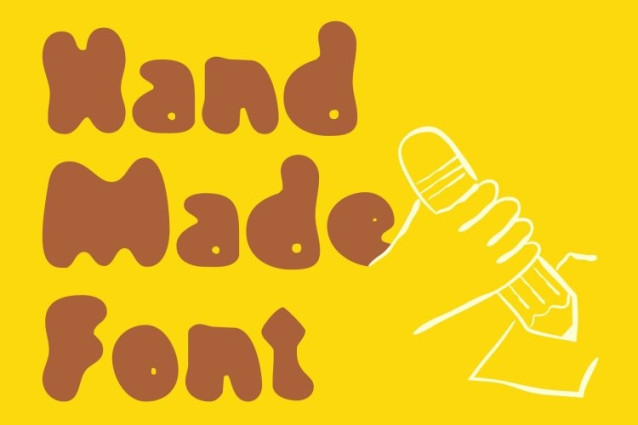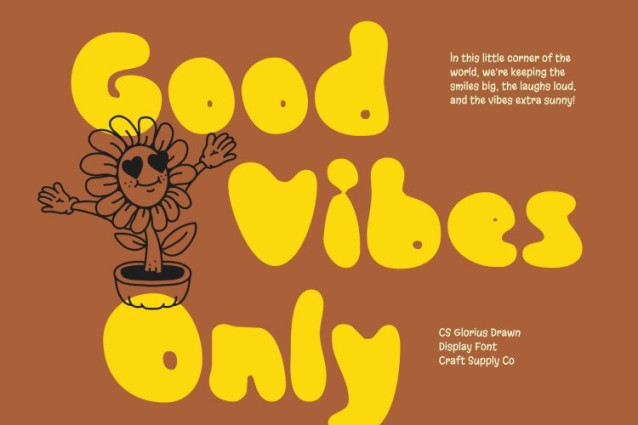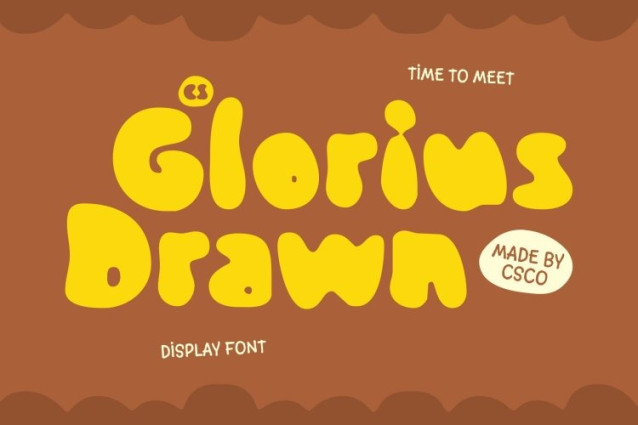
CS Glorius Drawn Font
CS Glorius Drawn Font This is an energetic etchy display font that combines bold, hand-drawn strokes with a slightly irregular yet balanced design. Each letterform carries a sketch-like, spontaneous quality that radiates fun, cheerfulness, and approachability. Its whimsical personality makes it ideal for projects that need to capture attention and convey playful energy, giving your designs a warm and inviting visual impact.
Designed for Playful and Kid-Friendly Projects
Perfect for children-focused visuals, enhances storybooks, toy packaging, educational posters, and playful branding. Its friendly shapes and dynamic strokes make every word feel alive, encouraging engagement and interaction. The hand-drawn effect adds a touch of authenticity, making designs feel more personal and crafted, while maintaining legibility for younger audiences and playful contexts.
Bold, Fun, and Full of Character
This font a balances creativity with structure. Its bold weight and expressive strokes ensure it stands out, while the hand-drawn texture provides a casual, artistic flair. The font’s informal yet controlled construction allows it to deliver strong headlines, whimsical titles, and playful branding with visual harmony, combining charm and readability.
Ideal for Creative and Educational Uses
Whether you’re designing learning materials, fun illustrations, children’s magazines, or interactive content, brings joy, movement, and character to every project. Its playful energy and handcrafted appearance make it a versatile choice for creative, educational, and kid-centric designs that aim to delight and inspire.